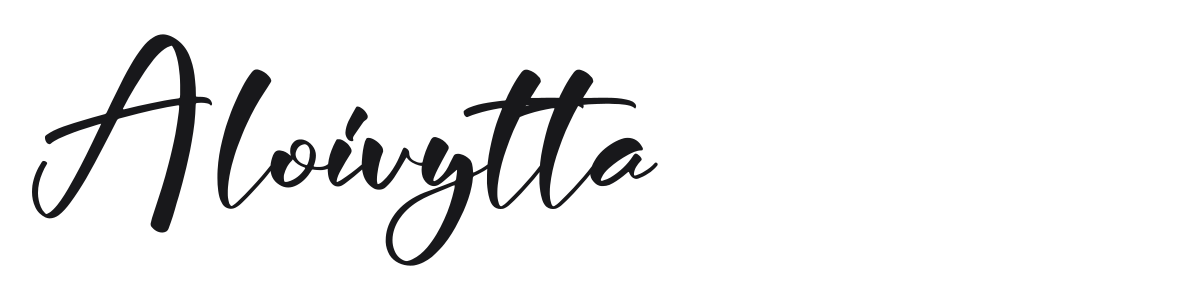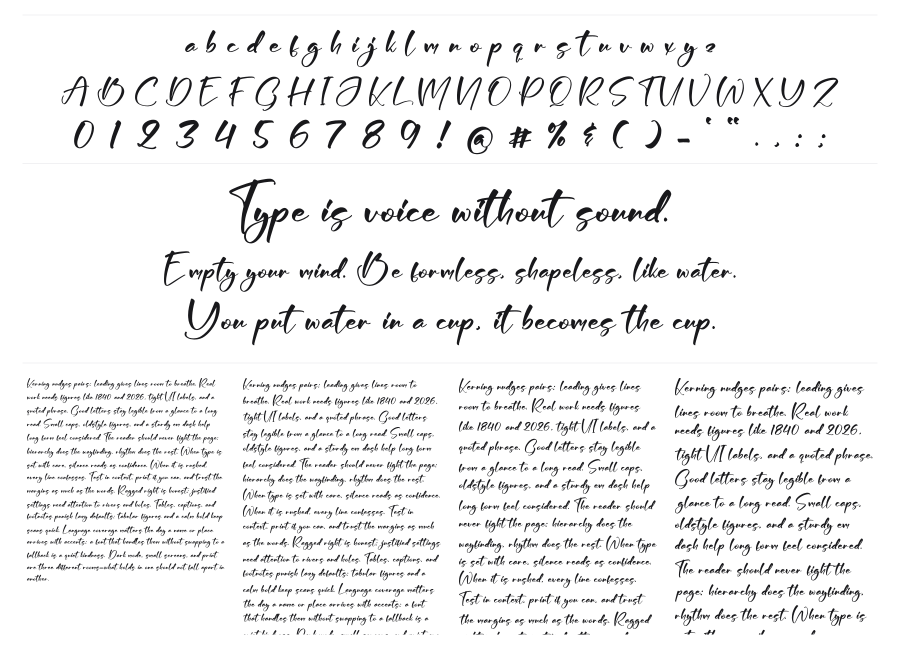
Aloivytta
Aloivytta is a contemporary brush script with flowing, ink-drawn energy and confident stroke contrast. The letters move with a natural, spontaneous rhythm that reads as genuinely handcrafted rather than mechanical. It works best at large sizes in branding, packaging, and editorial headers where the expressive baseline and thick-to-thin transitions can breathe.